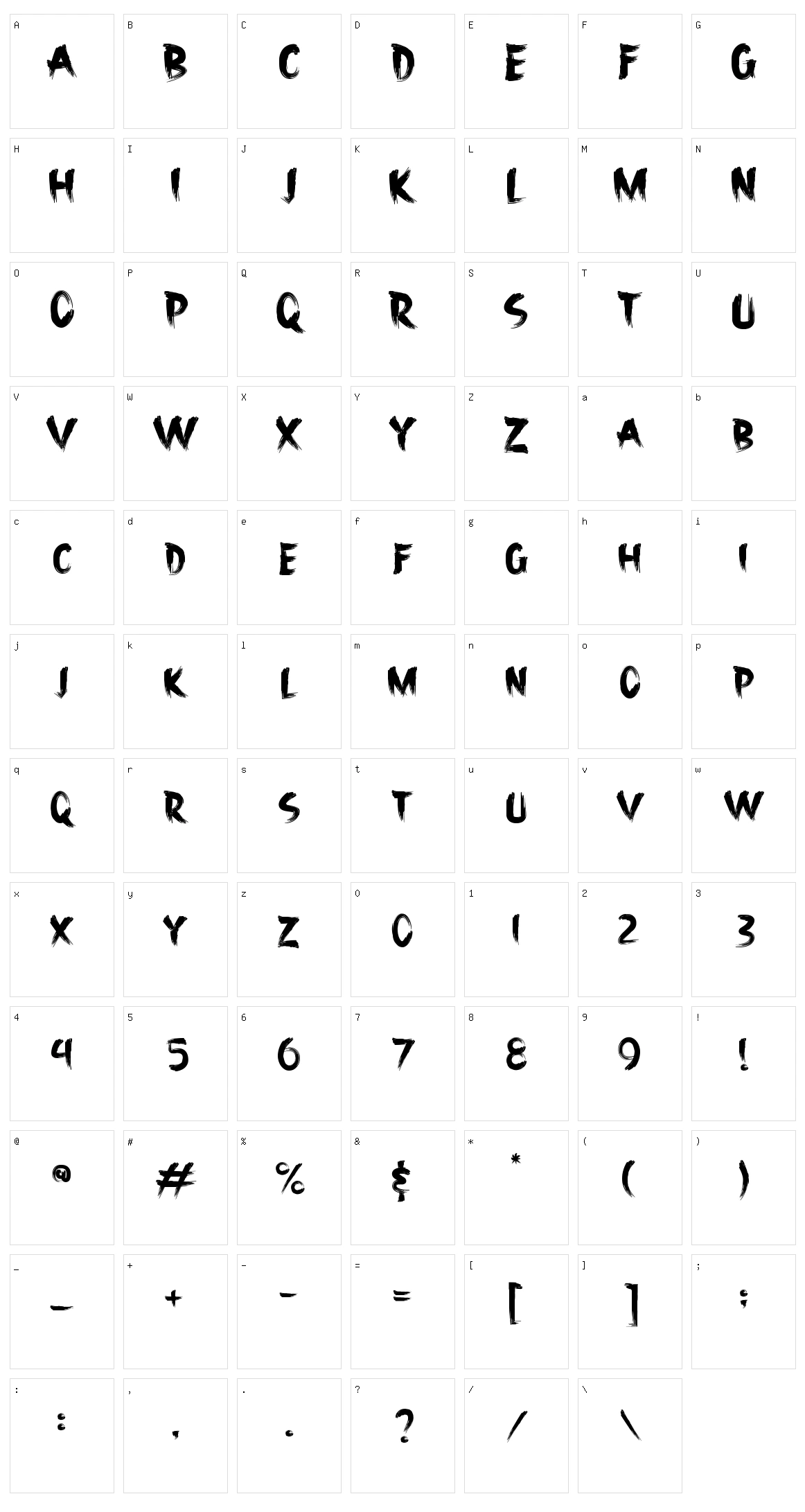
The free font Crystalakes is carefully designed by Roughlines ID, showcasing a thoughtful balance of creativity and usability and falls under the Horror font style. When you download the ZIP file, it contains only 4613.26 KB of font files, making it lightweight and quick to download. Please review the license details below to understand permitted usage and distribution rights. If license information is not available, we recommend using this font for personal projects only or contacting the author directly for commercial usage permissions.